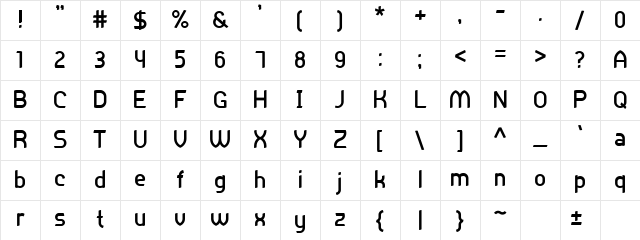
Practicum Regular
Design Context for Practicum
Practicum is a composed and adaptable typeface that performs quietly and consistently across a wide range of design contexts.